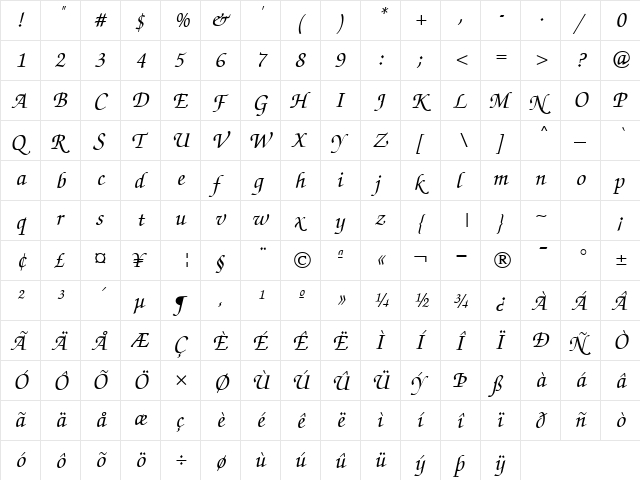
ZappedChancellor MedItalicSH
ZappedChancellor offers clean, dependable letterforms without strong stylistic allegiance, making it a practical choice for designers who need flexibility. The slanted form adds forward momentum and visual energy.